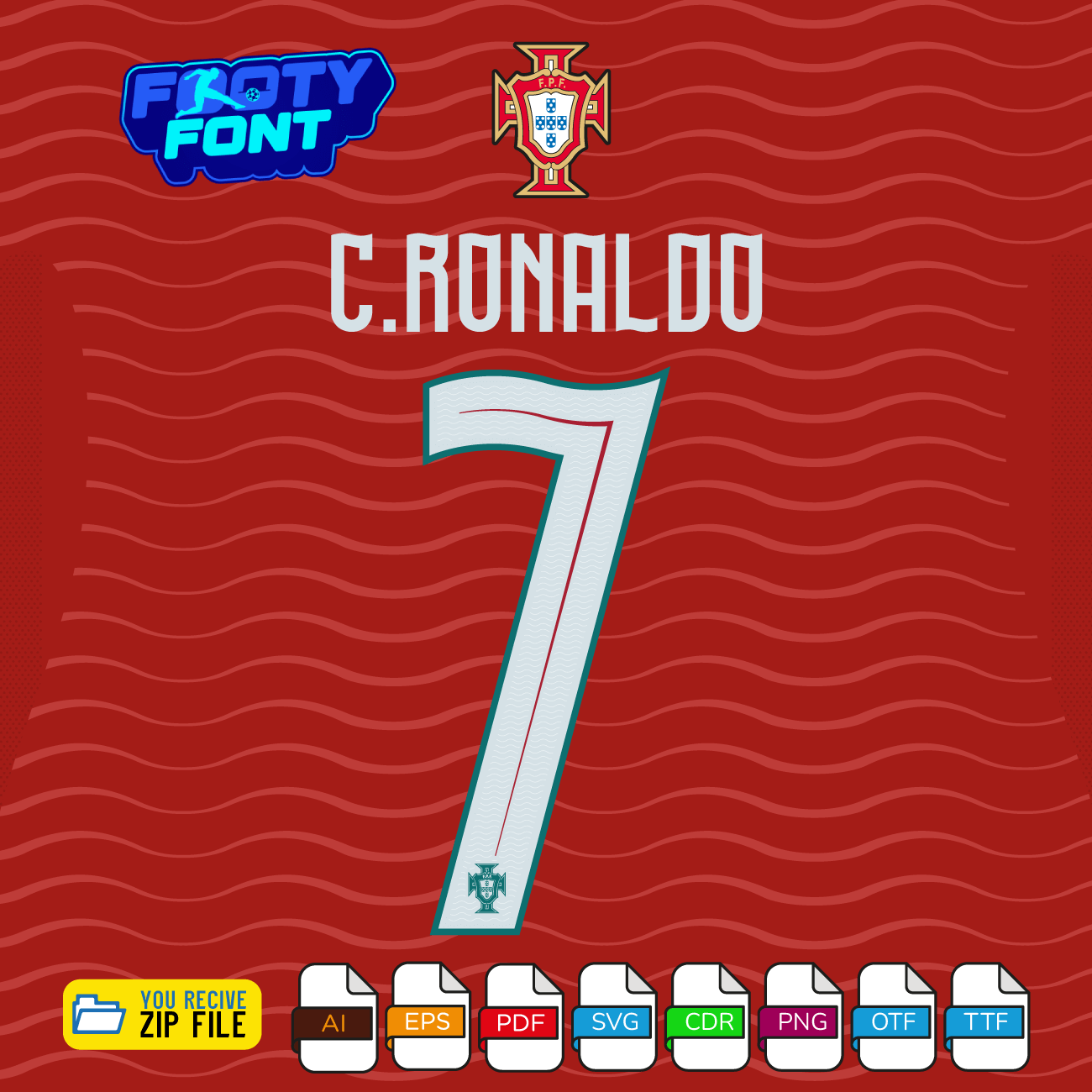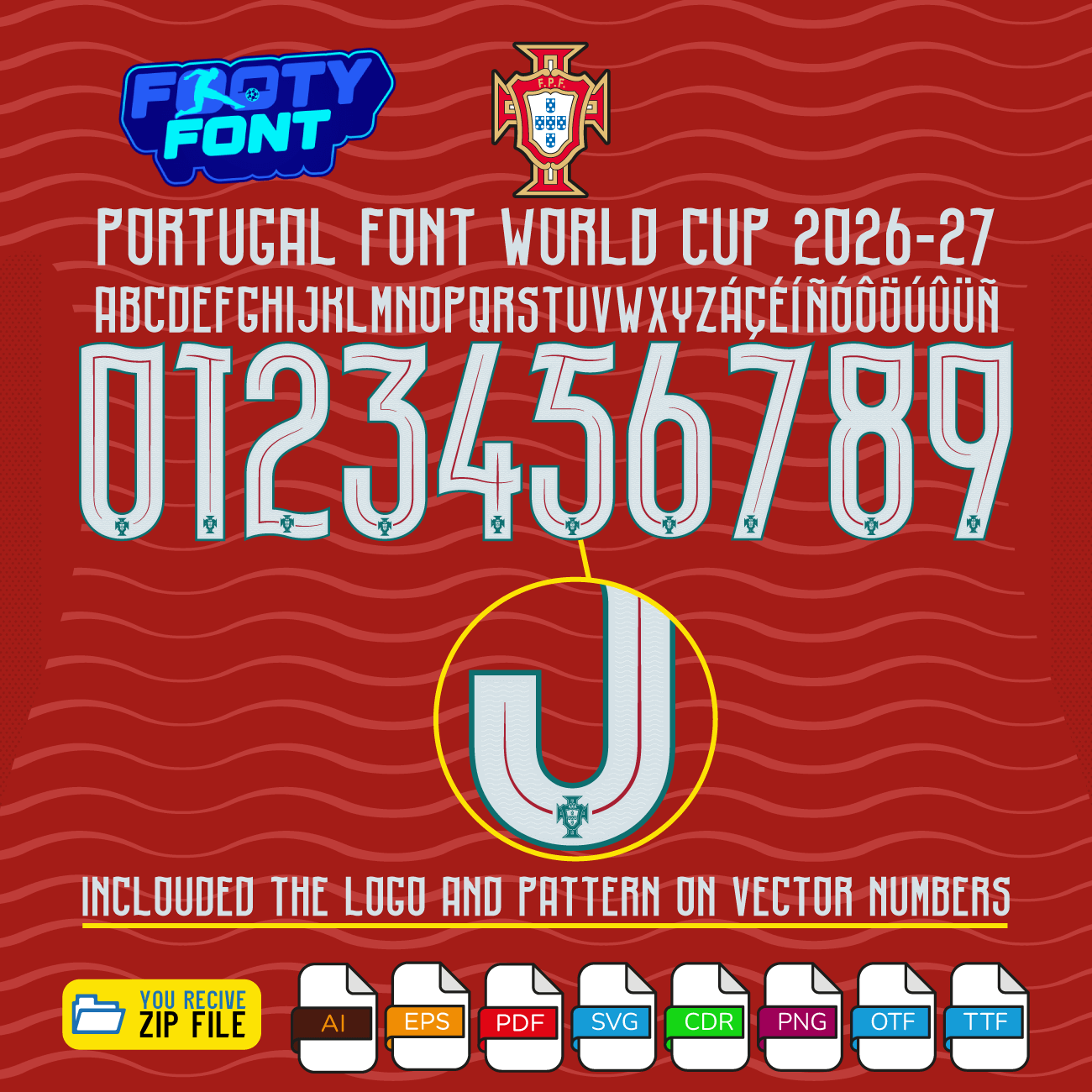
Portugal Font World cup 2026-27 Home kit
Celebrate a new era for A Seleção with this Portugal Jersey Font World Cup 2026 (Home Kit) typeface. Inspired by the first-ever Portugal World Cup jersey designed by Puma, this high‑quality font mirrors the modern details and bold colors of the 2026 home kit worn on the biggest stage.
Celebrate a new era for A Seleção with this Portugal Font World Cup 2026 (Home Kit) typeface. Inspired by the first-ever Portugal World Cup jersey designed by Puma, this high‑quality font mirrors the modern details and bold colors of the 2026 home kit worn on the biggest stage.
Designed in the style worn by C.Ronaldo 7 (CR7), Bruno Fernandes, Rafael Leão, Bernardo Silva, and the rest of the Portuguese stars, this typeface is perfect for custom jersey names and numbers, digital posters, social media graphics, and any project that shows your love for the Lusitanos.
omposite image showing Pedro Neto wearing the red, textured home jersey alongside the complete character set of the Portugal Font World Cup 2026 Home.
A complete look at the Portugal Font World Cup 2026 Home, featuring the full number set and a real-world match photo of Pedro Neto.
Portugal Font World Cup 2026-27 – full numbers 0-9 with FPF logo and pattern detail on red home kit background.